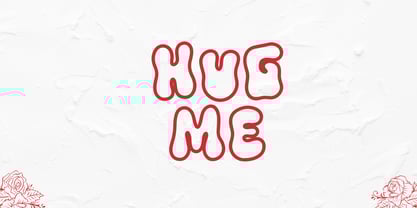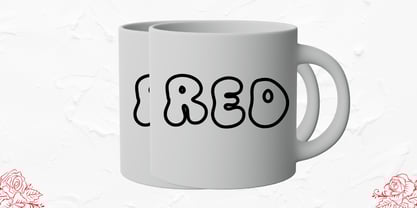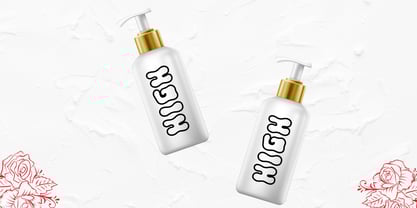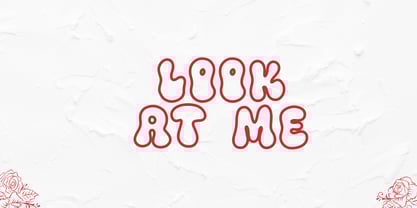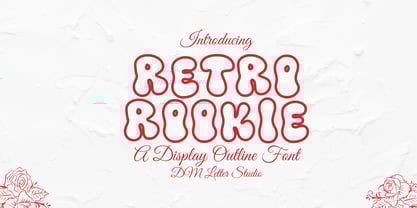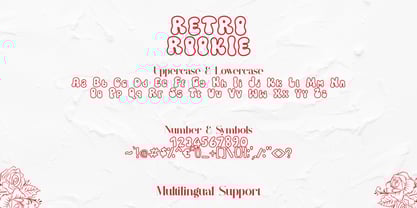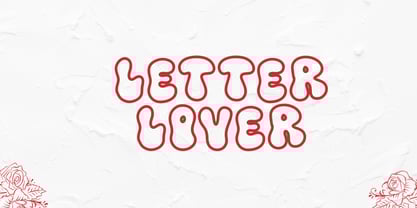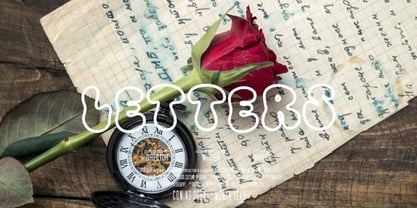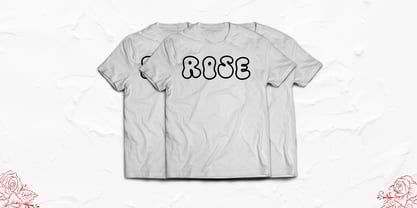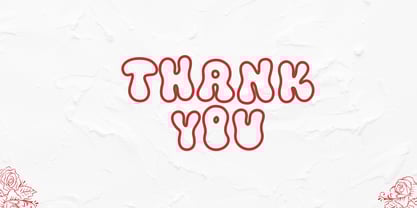
Meet Retro Cookie Font
Retro Cookie Font serves sweet, cozy nostalgia in bold, rounded letters. Strokes feel soft and friendly, while counters stay open for quick reading on mobile and print. Because the shapes echo vintage bakery signs and cookie tins, your words feel warm the moment they appear. Use it for dessert shops, kids’ brands, party invites, recipe cards, stickers, shirts, and thumbnails. Moreover, this style loves pastel palettes, soft shadows, and light grain, so even quick mockups look finished.
Where Retro Cookie Font shines
Set short phrases like “Fresh Baked,” “Sweet Treats,” or a first name. Then add layered outlines, puffy sticker borders, or a soft glow for depth. Since spacing is tuned for headlines, layouts come together in minutes. As a result, you can ship full bundles for printables, POD, packaging, and reels with less tweaking. Plus, the rounded rhythm keeps titles clear on small tags and product labels.
Fast setup, sweet results
Design tips for tasty retro type
Keep copy short and let Retro Cookie Font lead. Pair big cookie-style headlines with a clean geometric sans for captions and prices. Meanwhile, use curved baselines and arched badges to echo vintage bakery seals. Because the forms are thick and friendly, glitter textures, pastel gradients, and gel highlights work beautifully. However, avoid long sentences on tiny labels. Names, dates, and punchy phrases hit hardest.
What you get inside
Uppercase, lowercase, numbers, punctuation
Multilingual Latin support
Clean outlines tuned for vinyl, DTG, and high-res print
Why creators choose Retro Cookie Font
You want cozy nostalgia with clear readability. Retro Cookie Font delivers. It grabs attention in crowded feeds, speeds production, and scales from mini stickers to storefront posters without losing charm. Therefore, one typeface can anchor kids, bakery, and party collections with a consistent, sellable voice.
Retro Rookie